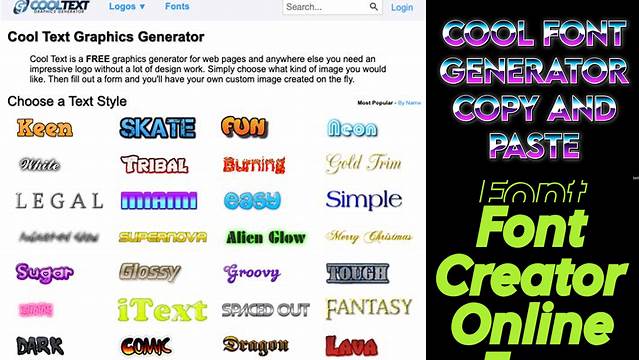
Free Font Generator Online: Create Cool Text!
Hey guys! Ever wanted to spice up your social media posts, design awesome graphics, or just play around with different text styles? Well, you've come to the right place! We're diving deep into the world of free font generators online, and trust me, it's a rabbit hole you'll love exploring. From creating eye-catching headlines to crafting unique logos, the possibilities are endless when you have the power of a font generator at your fingertips. So, let's get started and unleash your inner designer!
1. Understanding Free Font Generators
So, what exactly is a free font generator? It's essentially a tool that allows you to create text in various styles, often going beyond the standard fonts you find in word processors. These generators use a range of techniques, from simple letter transformations to complex stylistic algorithms, to produce unique and visually appealing text. Think of it as a digital playground for typography, where you can experiment with different looks and feels without needing to be a professional designer. These font generators are a fantastic resource for anyone looking to add a personal touch to their digital projects, whether it's for social media posts, website headers, or even crafting personalized invitations. The beauty of these tools lies in their accessibility; you don't need expensive software or years of design experience to create stunning text effects. With just a few clicks, you can transform ordinary text into something extraordinary, making your message stand out from the crowd. Plus, the sheer variety of styles available means there's something for everyone, from bold and futuristic fonts to elegant and classic designs.
2. Benefits of Using Online Font Generators
Why should you use a free font generator online? Well, the benefits are numerous! First and foremost, they're incredibly convenient. No need to download or install anything – just head to a website, type in your text, and voila! You have a plethora of font styles to choose from. This ease of access makes them perfect for quick projects or when you're working on the go. Secondly, these generators offer a vast range of styles. You can find everything from whimsical and playful fonts to sleek and professional ones, ensuring you can always find the perfect match for your project's aesthetic. This variety is a game-changer for content creators who want to keep their designs fresh and engaging. Beyond convenience and variety, online font generators also save you time and money. Hiring a designer for custom fonts can be expensive, and learning complex design software takes time. With a font generator, you can achieve professional-looking results in minutes, without breaking the bank. This makes them an ideal solution for small businesses, bloggers, and anyone on a budget. Finally, many of these tools allow you to customize your text further, adjusting size, color, and adding effects. This level of control gives you the creative freedom to truly make your text your own, ensuring it perfectly complements your overall design.
3. Finding the Best Free Font Generator
Okay, so you're sold on the idea of using a free font generator, but where do you start? With so many options available online, it can feel a bit overwhelming. The key is to look for a generator that meets your specific needs and offers a good balance of features, ease of use, and font variety. Start by browsing online reviews and recommendations. See what other users are saying about different generators and which ones consistently receive positive feedback. Pay attention to comments about the quality of the fonts, the user interface, and any limitations or drawbacks. Next, consider the types of projects you'll be working on. If you're primarily creating social media graphics, you'll want a generator that offers trendy and eye-catching fonts. If you're designing a website, you'll need fonts that are legible and professional. Some generators cater to specific niches, such as gaming or retro designs, so choose one that aligns with your creative goals. Don't be afraid to try out a few different generators before settling on one. Most offer free trials or allow you to generate text without creating an account. This hands-on approach will give you a feel for the interface and the quality of the fonts. Look for generators that offer a preview function, so you can see how your text will look in different styles before committing to a download. Finally, be mindful of licensing. While many generators offer free fonts, some may have restrictions on commercial use. Make sure you understand the terms and conditions before using a font in a project that you intend to monetize.
4. Using Font Generators for Social Media
Social media is all about grabbing attention, and a free font generator can be your secret weapon! Think about it: your posts are competing with thousands of others in a user's feed, so you need something that makes them stop scrolling. Using unique and stylish fonts in your captions, stories, and profile bios can instantly elevate your brand and make your content more visually appealing. For example, imagine you're promoting a new product launch. Instead of using a generic font, you could generate a bold, futuristic font for your headline, creating a sense of excitement and innovation. Or, if you're sharing a personal story, a handwritten-style font can add a touch of warmth and authenticity. The key is to choose fonts that reflect your brand's personality and the message you're trying to convey. Social media font generators are also great for creating consistent branding across your profiles. By using the same font styles in your profile picture, cover photo, and bio, you can create a cohesive and professional look. This helps build brand recognition and makes your profiles instantly identifiable. Don't be afraid to experiment with different fonts and styles, but always keep your target audience in mind. What kind of fonts will resonate with them? What message do you want to send? By carefully considering these factors, you can use font generators to create social media content that truly stands out.
5. Font Generators for Graphic Design
If you're into graphic design, a free font generator is an indispensable tool. Whether you're creating logos, posters, brochures, or website graphics, fonts play a crucial role in conveying your message and establishing your visual identity. A well-chosen font can make your design look polished and professional, while a poorly chosen one can detract from the overall impact. With a font generator, you have access to a vast library of fonts that you can use to create unique and eye-catching designs. You can experiment with different styles, sizes, and weights to find the perfect font for your project. For example, if you're designing a logo for a tech company, you might choose a clean and modern sans-serif font. If you're creating a poster for a vintage-themed event, you might opt for a classic serif font with a retro feel. Font generators also allow you to customize your text in various ways, such as adding shadows, outlines, or gradients. This gives you even more control over the final look and feel of your design. In addition to creating text elements, font generators can also be used to create decorative elements, such as borders, frames, and patterns. This can be a great way to add visual interest to your designs and make them stand out. When using font generators for graphic design, it's important to consider the overall composition and balance of your design. Make sure your fonts are legible and that they complement the other elements in your design. Don't overcrowd your design with too many different fonts, as this can make it look cluttered and unprofessional.
6. Font Generators for Website Design
Your website's typography is a key element of its overall design and user experience, making a free font generator an invaluable resource. The fonts you choose can significantly impact your website's readability, aesthetics, and brand identity. A free font generator can help you find the perfect fonts to create a visually appealing and user-friendly website. When choosing fonts for your website, readability should be your top priority. Your website's text should be easy to read on all devices and screen sizes. Avoid using fonts that are too small, too thin, or too decorative, as these can be difficult to read. Stick to fonts that are clean, clear, and legible, such as sans-serif fonts like Arial, Helvetica, and Open Sans. In addition to readability, your website's fonts should also reflect your brand's personality and style. If you have a modern and minimalist brand, you might choose a sleek and contemporary font. If you have a more traditional brand, you might opt for a classic serif font. Consider your target audience and the overall message you want to convey when choosing your fonts. Online font generators can also be used to create custom headings and titles for your website. Using unique and eye-catching fonts for your headings can help draw attention to important content and make your website more visually appealing. However, be careful not to overdo it. Stick to a maximum of two or three different fonts on your website to avoid creating a cluttered and unprofessional look. Many font generators offer web font versions that are optimized for online use. These fonts load quickly and display correctly on all devices. Make sure you choose web fonts that are compatible with your website's platform and design.
7. Creating Logos with Font Generators
Logos are the face of a brand, and typography plays a vital role in their design. A free font generator can be a fantastic tool for creating unique and memorable logos, especially if you're on a budget or just starting out. The right font can convey your brand's personality, values, and target audience. When designing a logo with a free font generator, start by considering your brand's identity. What are your brand's core values? What message do you want to communicate? Your font choice should align with these elements. For example, if your brand is modern and innovative, you might choose a clean and geometric sans-serif font. If your brand is classic and elegant, you might opt for a traditional serif font. A free font generator allows you to experiment with different font styles and combinations to find the perfect fit for your logo. Consider using a font generator that offers a wide range of font options, including both free and premium fonts. This will give you more flexibility and creativity in your design process. Think about the overall shape and structure of your logo. Your font should complement the other elements of your logo, such as icons, symbols, and colors. Avoid using fonts that are too busy or distracting, as this can make your logo look cluttered and unprofessional. Simplicity is often key when it comes to logo design. Many font generators allow you to customize your text in various ways, such as adjusting the letter spacing, kerning, and size. This gives you more control over the final look and feel of your logo. Use these features to fine-tune your font and make it perfectly fit your design. Once you've created your logo, make sure to test it in different sizes and formats to ensure it looks good in all applications, from your website to your business cards.
8. Font Generators for Invitations and Cards
Planning a special event? A free font generator can help you create beautiful and personalized invitations and cards. The right font can set the tone for your event, whether it's a wedding, birthday party, or holiday celebration. When choosing fonts for your invitations and cards, consider the style and formality of your event. For a formal event like a wedding, you might choose an elegant script or serif font. For a more casual event like a birthday party, you could opt for a playful and whimsical font. A free font generator offers a variety of font styles to suit any occasion. Think about the overall design and theme of your invitations and cards. Your font should complement the other elements, such as colors, images, and patterns. Avoid using fonts that clash with your design or are difficult to read. For example, if you're using a busy background, you'll want to choose a font that is simple and clear. Many online font generators allow you to customize your text with different colors, sizes, and effects. This can help you create invitations and cards that are truly unique and personalized. Consider using a font generator that allows you to preview your design before printing. This will help you catch any errors or make adjustments before you commit to printing a large batch. If you're printing your invitations and cards at home, make sure to use high-quality paper and ink. This will help your fonts look their best and ensure your invitations and cards make a lasting impression. Don't be afraid to mix and match fonts to create a visually interesting design. However, stick to a maximum of two or three different fonts to avoid creating a cluttered look.
9. Font Generators for Presentations
In the world of presentations, clear and engaging typography is crucial for conveying your message effectively. A free font generator can be a valuable asset in creating visually appealing and impactful presentations. The fonts you choose can influence your audience's perception of your content and your professionalism. When selecting fonts for your presentations, prioritize readability. Your audience should be able to easily read your slides from any distance. Avoid using fonts that are too small, too thin, or overly decorative, as these can be difficult to decipher. Stick to fonts that are clean, clear, and legible, such as sans-serif fonts like Arial, Helvetica, and Calibri. A free font generator can help you find a variety of readable and professional-looking fonts. Think about the tone and style of your presentation. Your font choices should align with your message and brand. For example, if you're giving a presentation on a serious topic, you might choose a more formal and conservative font. If you're presenting on a creative topic, you could opt for a more playful and expressive font. Use a free font generator online to experiment with different styles and see what resonates best with your content. Consistency is key in presentation design. Stick to a maximum of two or three different fonts throughout your presentation to maintain a cohesive and professional look. Use one font for your headings and another for your body text. This will help create visual hierarchy and make your slides easier to follow. Many font generators offer web font versions that are optimized for display on screens. Make sure to choose fonts that are compatible with presentation software like PowerPoint and Keynote. Consider the contrast between your font color and your background color. Your text should be easily readable against your background. Avoid using colors that are too similar, as this can make your text difficult to see. Use font generators to test different color combinations and ensure optimal readability.
10. Font Generators for T-Shirt Design
Designing a custom t-shirt? A free font generator can be a game-changer! The font you choose can make or break your design, so it's important to select one that perfectly captures your message and style. Whether you're creating t-shirts for your business, a special event, or just for fun, a font generator can help you create eye-catching and unique designs. When selecting fonts for t-shirt design, consider the message you want to convey. Are you going for a bold and impactful look? Or something more subtle and understated? Your font choice should reflect your message and the overall aesthetic of your design. A free font generator offers a wide range of styles, from edgy and modern to classic and vintage. Think about the size and placement of your text on the t-shirt. Your font should be legible and easy to read, even from a distance. Avoid using fonts that are too small or too intricate, as these can get lost in the fabric and become difficult to decipher. A good online font generator will allow you to preview your text in different sizes and placements to ensure optimal readability. Consider the color of your font and the color of your t-shirt. Your font should stand out against the background and be easily visible. Avoid using colors that are too similar, as this can make your text blend in and become difficult to see. Many font generators allow you to experiment with different color combinations and see how they look together. Think about the overall style and design of your t-shirt. Your font should complement the other elements of your design, such as graphics, images, and patterns. Avoid using fonts that clash with your design or create a cluttered look. A free font generator can help you create a cohesive and visually appealing design. Many font generators offer features like text outlining, shadowing, and layering, which can add depth and dimension to your t-shirt designs. Experiment with these features to create unique and eye-catching effects.